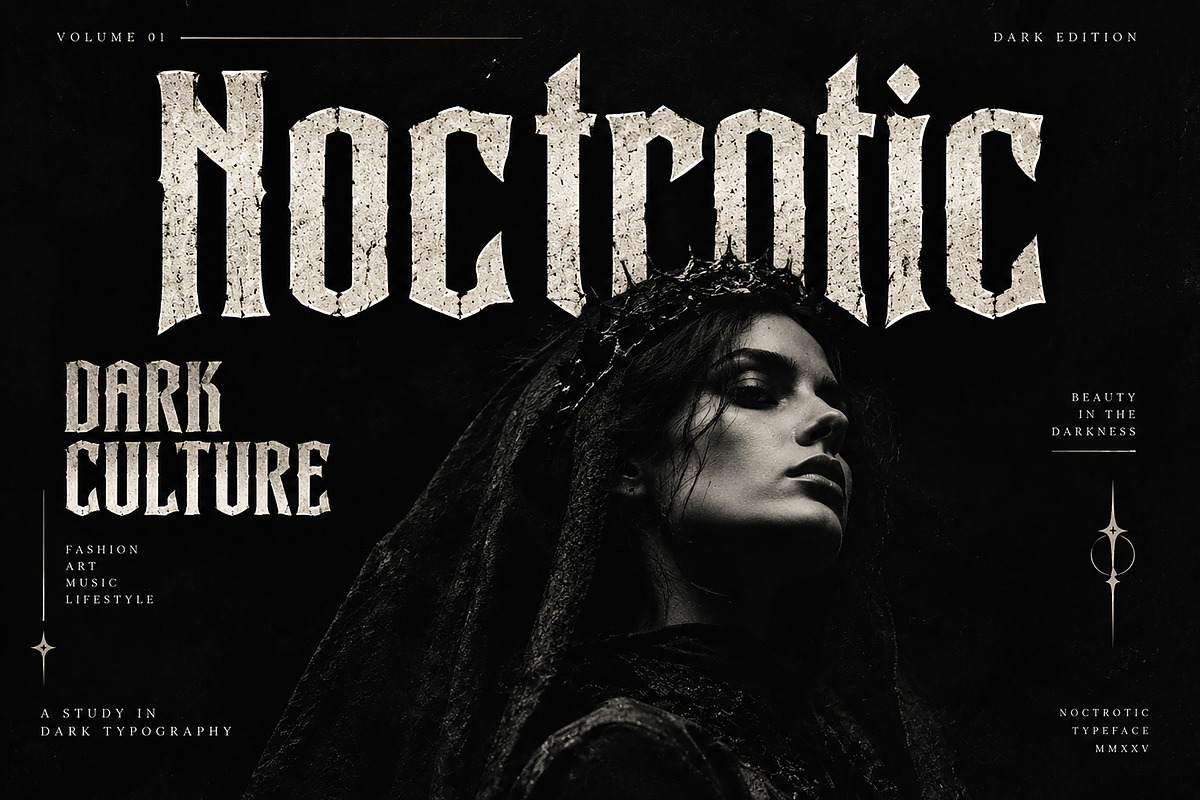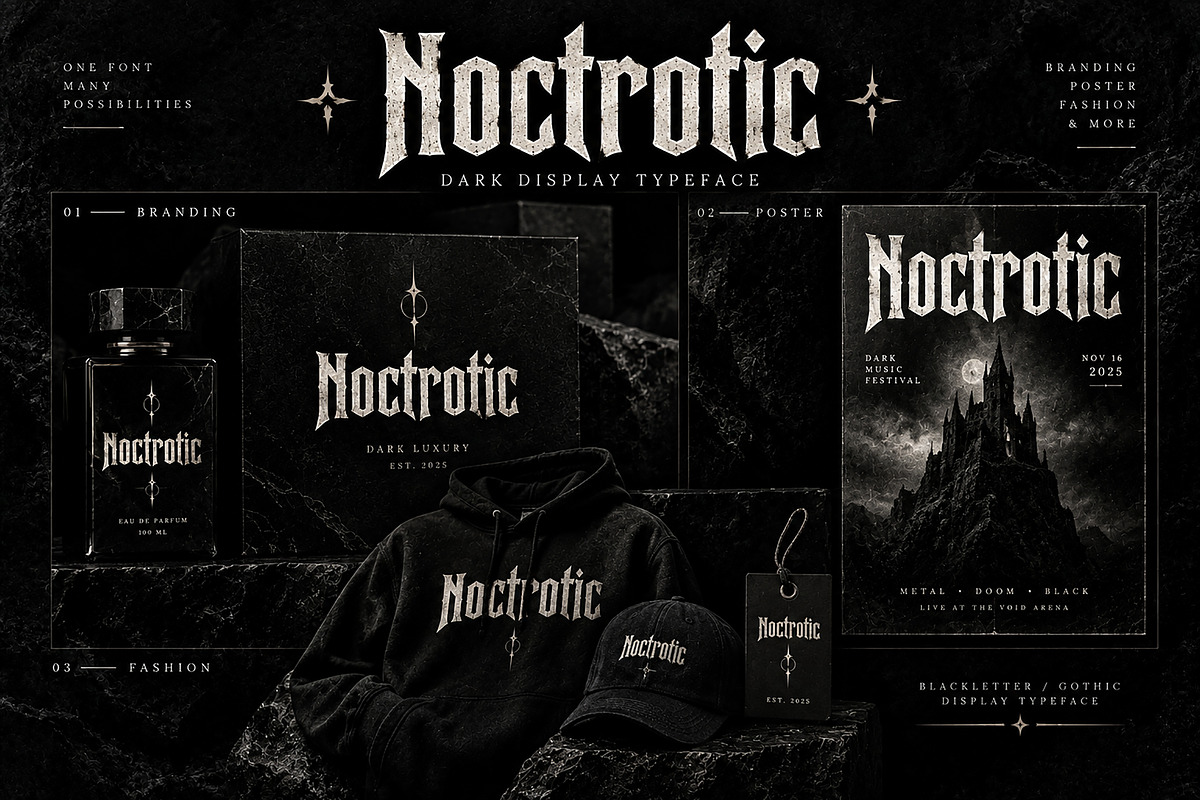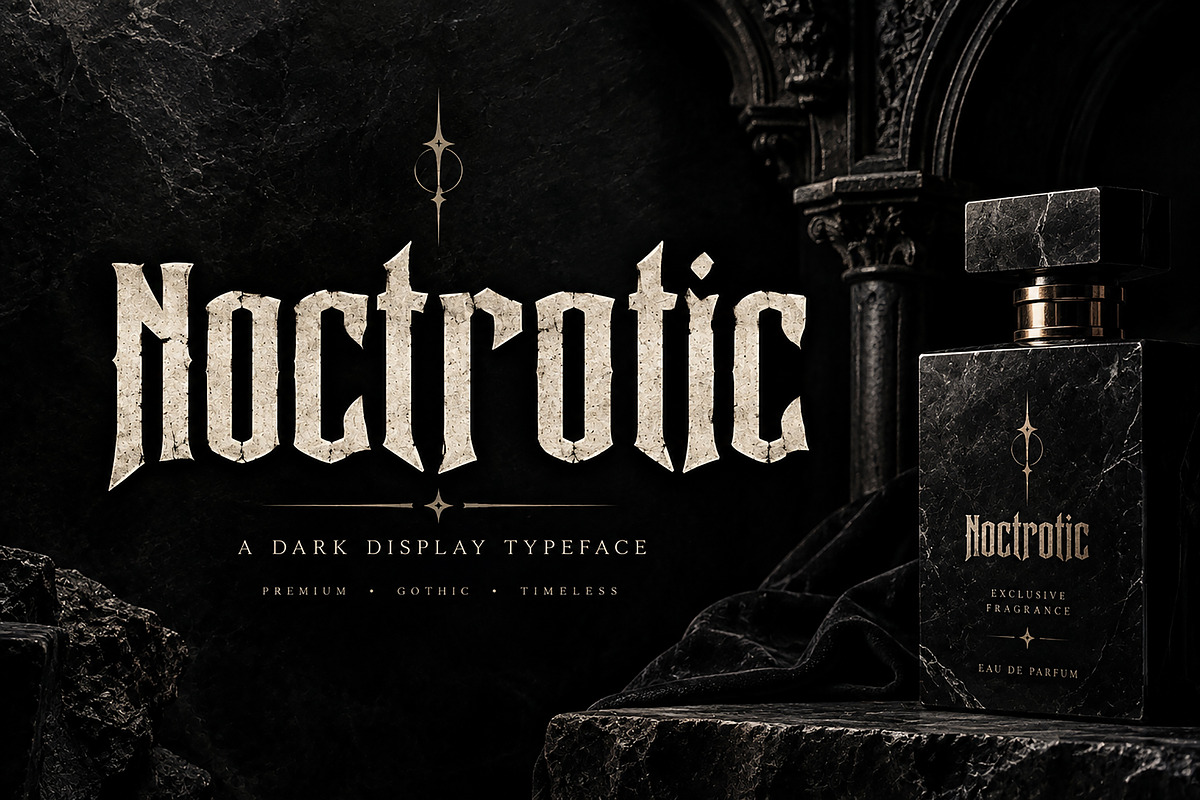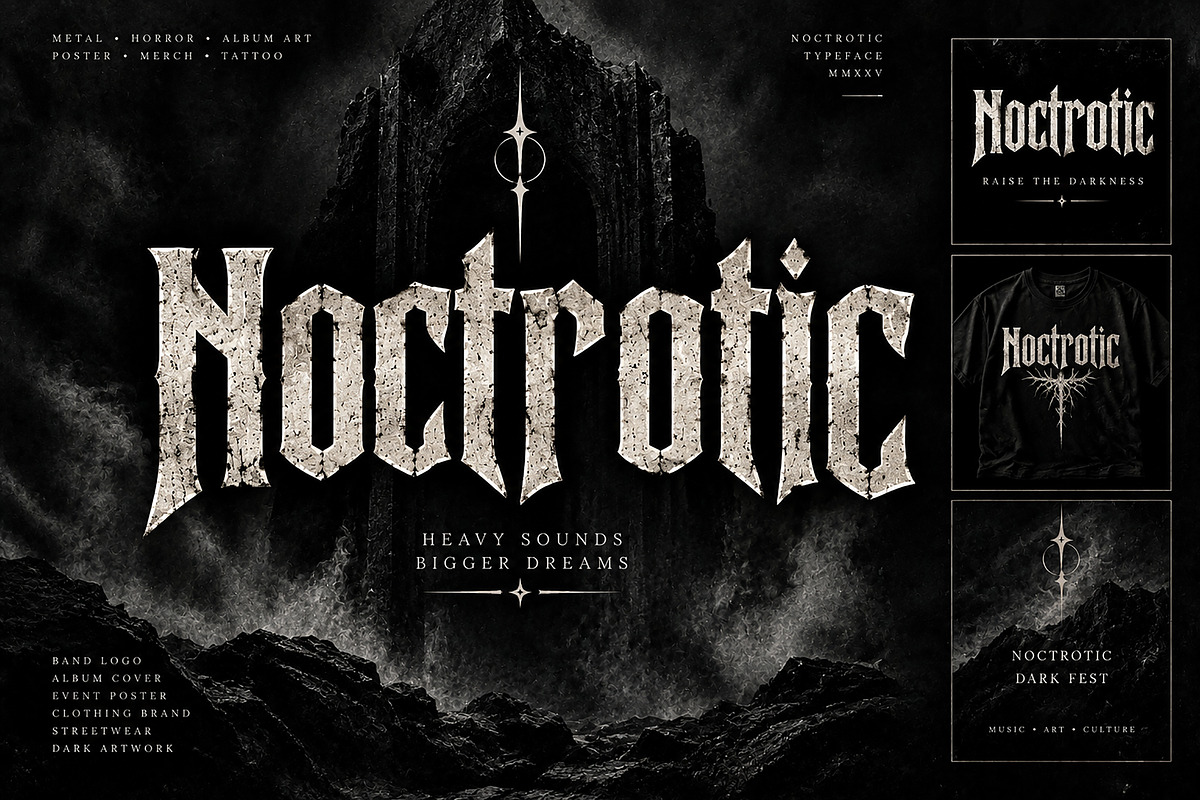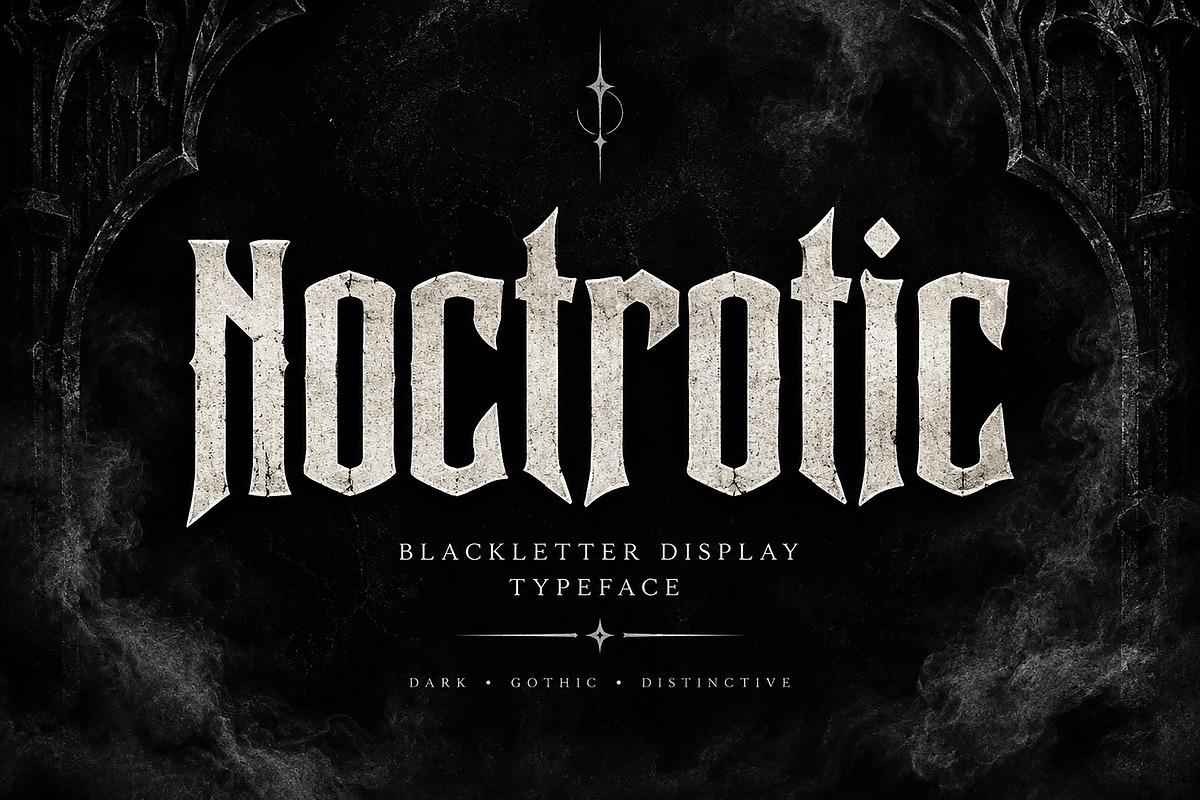
Noctrotic
Noctrotic — Dark Gothic Blackletter Typeface
Noctrotic is a bold and distinctive blackletter display typeface designed for dark, powerful, and unforgettable visual identities.
With its sharp angular forms, dramatic proportions, and strong gothic character, Noctrotic brings an intense medieval-inspired aesthetic to modern design. Its commanding presence makes it an excellent choice for projects that need a mysterious, rebellious, luxurious, or underground atmosphere.
Perfect for designers, brands, musicians, fashion creatives, and artists looking to create typography that immediately captures attention.
Logo & Brand Identity
Fashion & Streetwear
Band & Music Artwork
Album Covers
Poster Design
Gothic & Alternative Branding
Horror & Dark-Themed Designs
Tattoo Studio Branding
Event & Festival Graphics
Merchandise & Apparel
Editorial & Magazine Design
Packaging & Product Branding
Titles & Headlines
Typeface Style
Noctrotic works especially well when you want your typography to become the main visual element of a design.
Style: Blackletter / Gothic Display Typeface
Create bold logos, dark fashion identities, powerful posters, album artwork, merchandise, and atmospheric branding with Noctrotic.
Bring darkness to your typography.